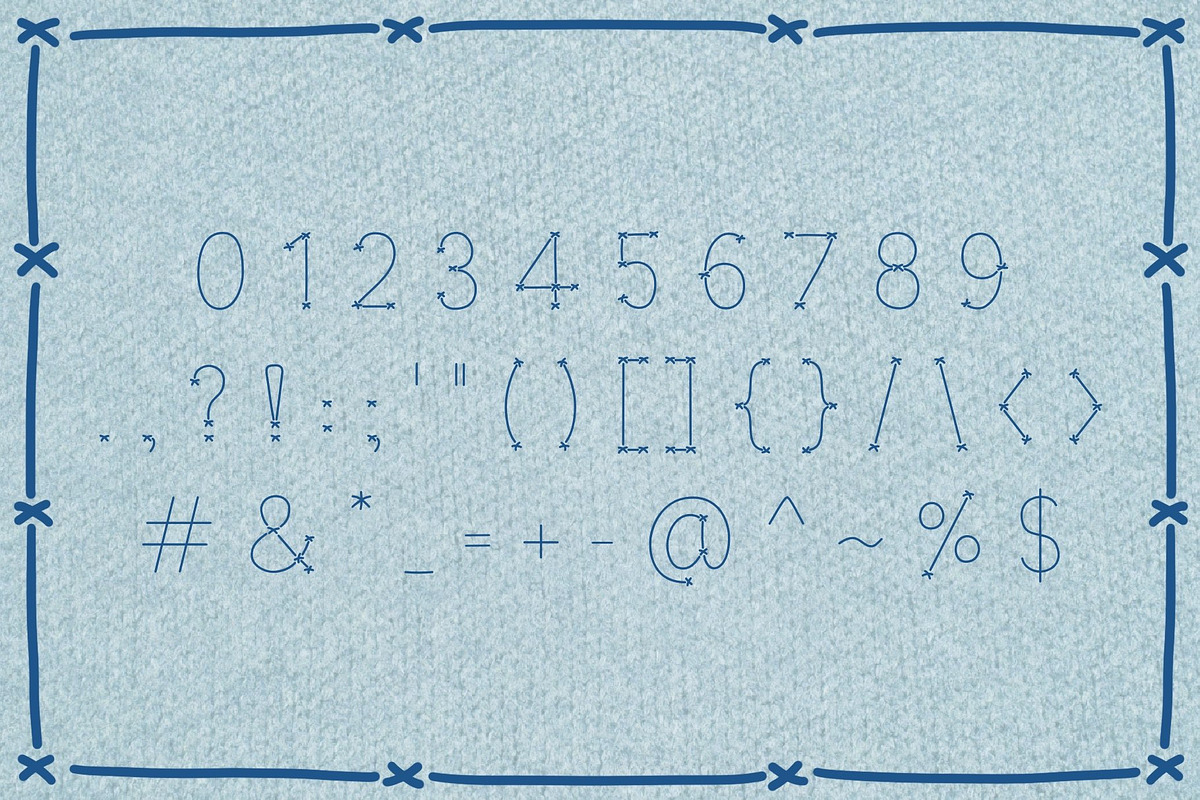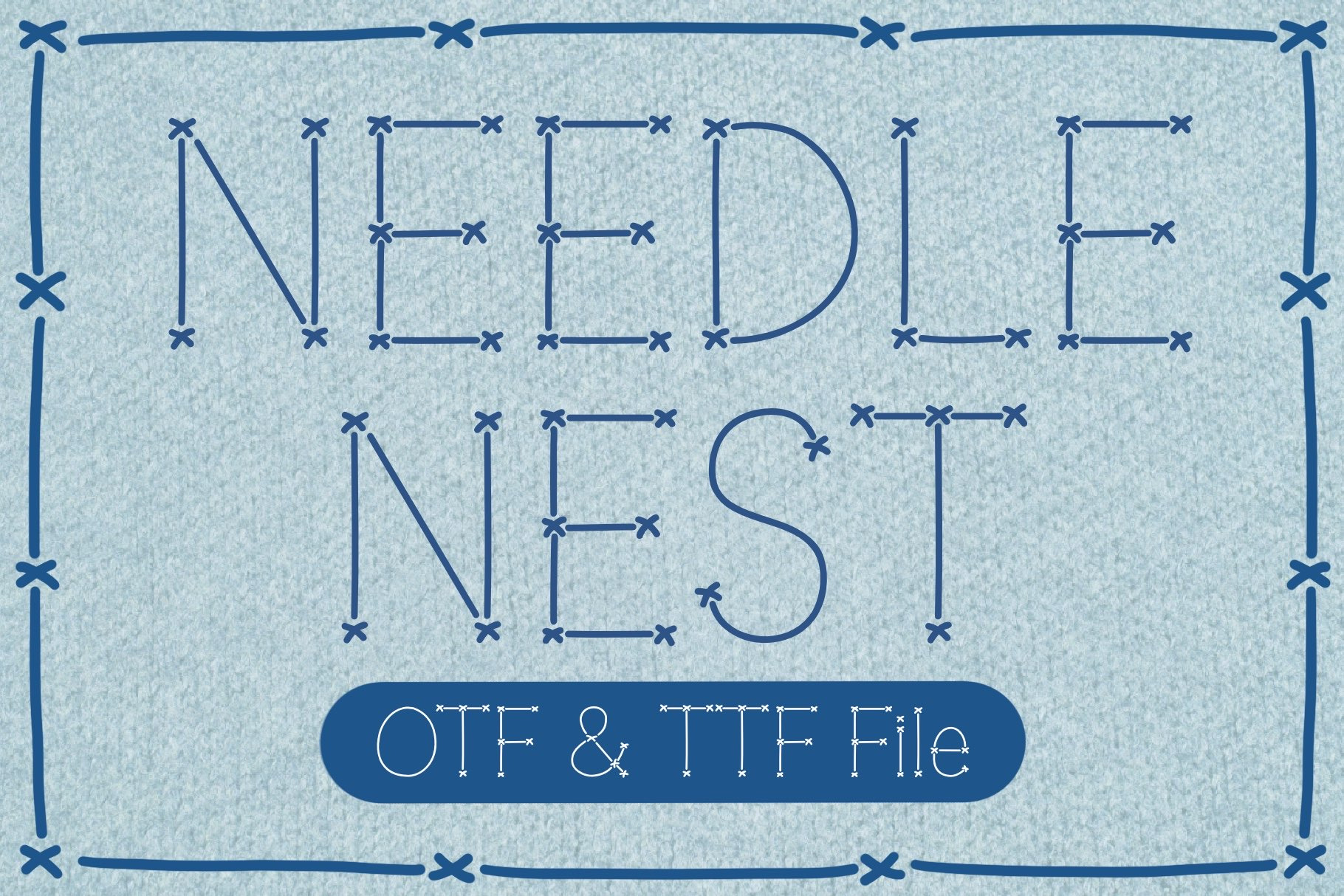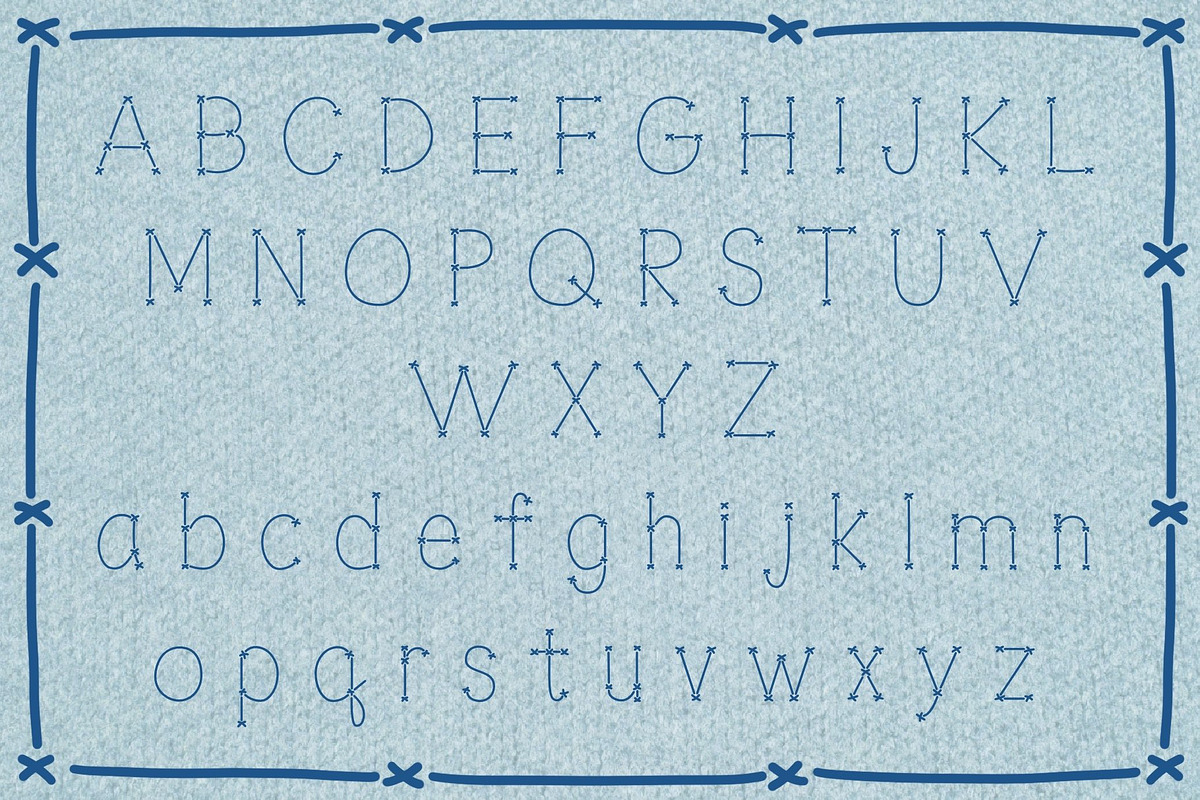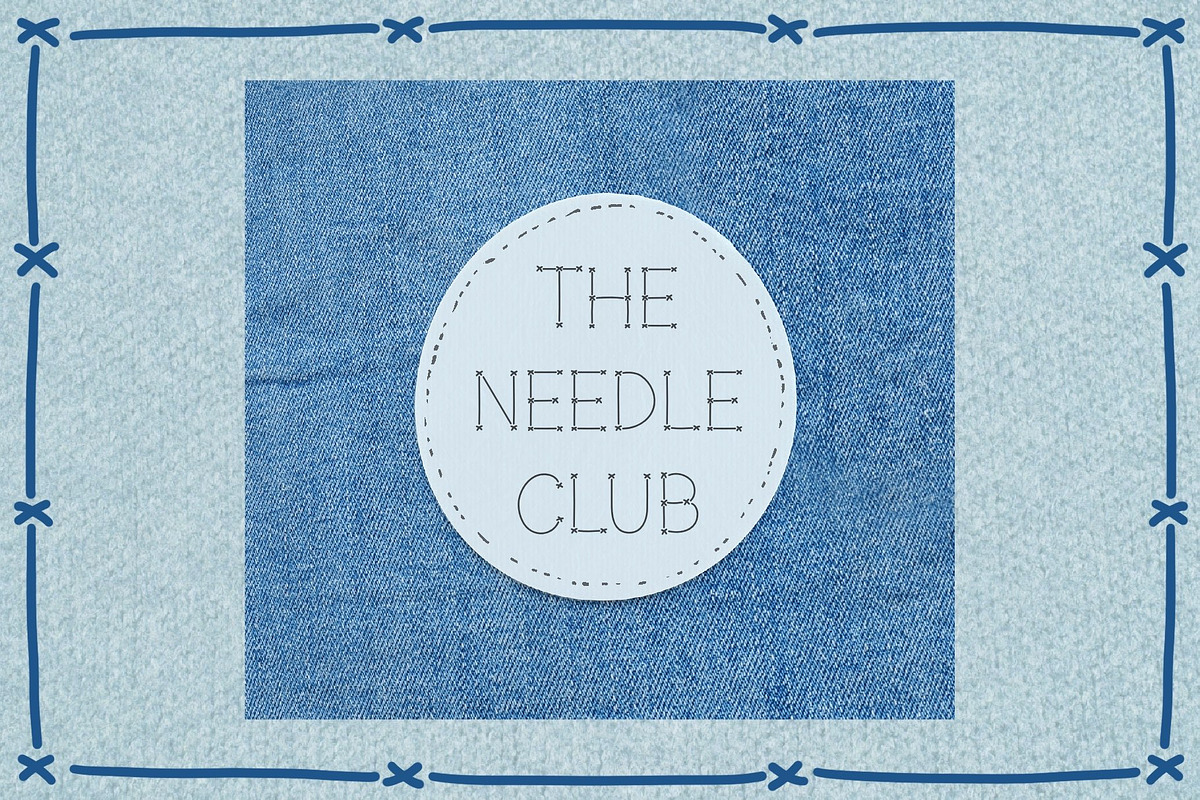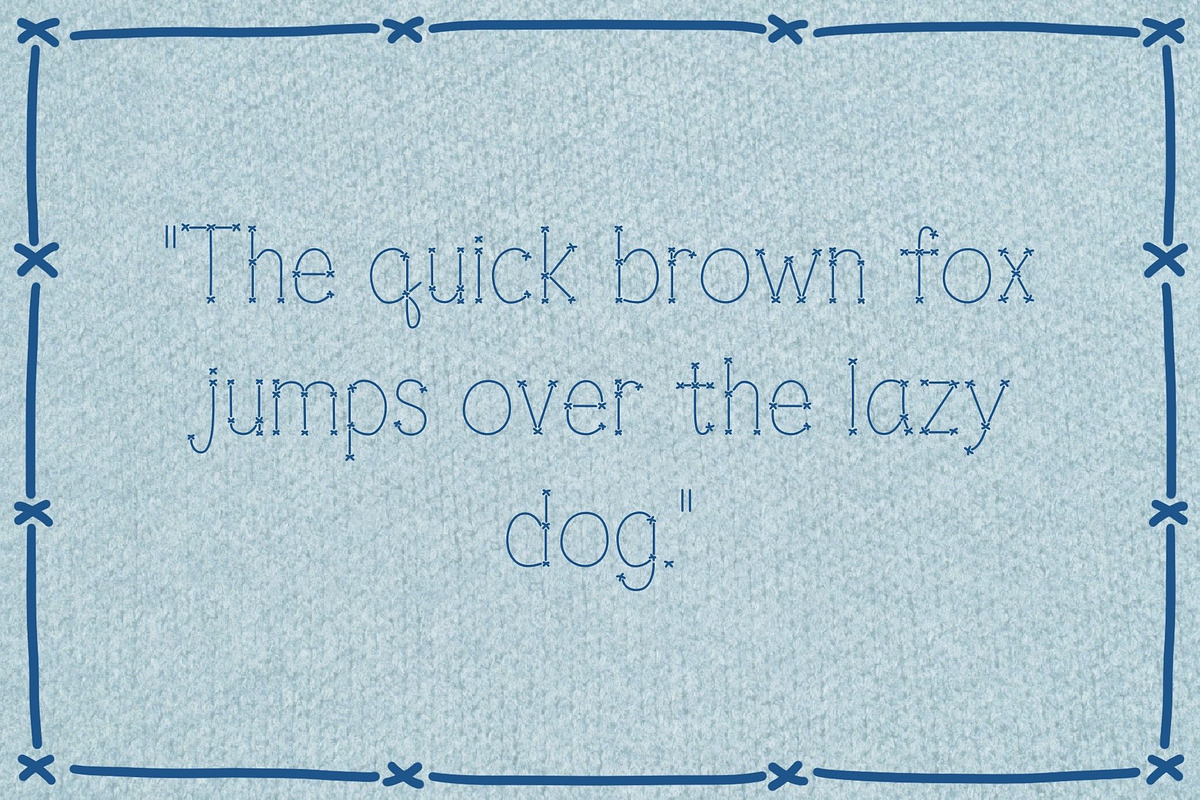
Needle Nest Font
Needle Nest Font is a handwriting font that combines cross stitches and straight stitch lines. Perfect for your personal projects and various projects. From invitations to posters, social media graphics, journals, and much more.